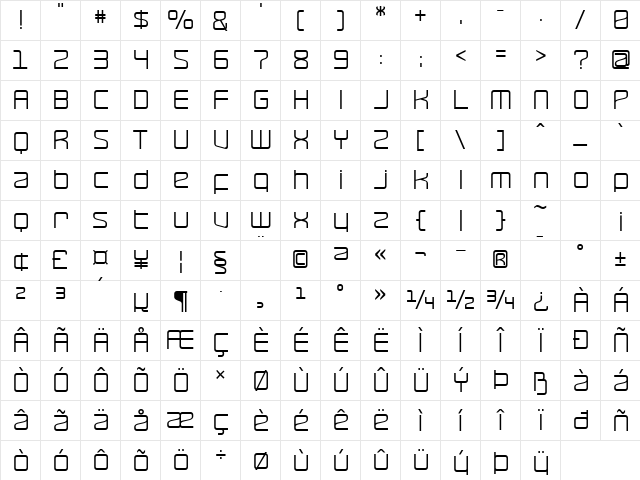
RaveParty Poster Regular
| Foundry | Three Mile Island - You puke em, we nuke em |
Design Context for RaveParty Poster Typeface
RaveParty Poster is a composed and adaptable typeface that performs quietly and consistently across a wide range of design contexts.